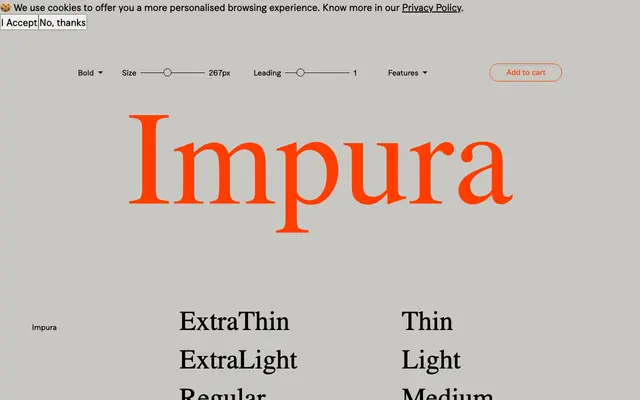
An eight-weight display family from Fuerte Type with a raw, underground character and an extensive set of OpenType alternates and stylistic sets.
Spanning eight weights from ExtraThin to Black, Impura is aimed at editorial, poster and identity work that leans into subculture and countercultural aesthetics. Nine stylistic sets, swashes, contextual alternates and discretionary ligatures give designers considerable room to vary texture and voice. The sample copy, referencing punk basements, guerrilla galleries and DIY spaces, signals the intended register clearly.
Impura is a display typeface with a distinctly underground, expressive character, evoked through its sample copy referencing punk, rebellion and DIY culture, placing it firmly in the display category with an expressive subcategory.